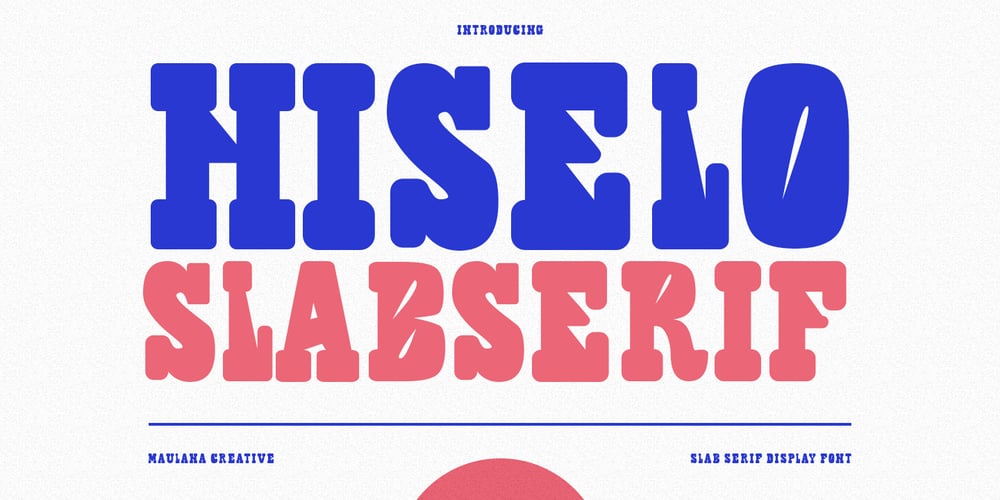
MC Hiselo Font Family was designed by Gilang Maulana and published by Maulana Creative. MC Hiselo contains 1 styles and family package options. Hiselo is a slab serif display font. Medium stroke, fun character with a bit of ligatures. To give you an extra creative work. Hiselo font support multilingual more than 100+ language. This font is good for logo design, Social media, Movie Titles, Books Titles, a short text even a long text letter and good for your secondary text font with script or serif. Make a stunning work with Hiselo font. Cheers, Maulana Creative